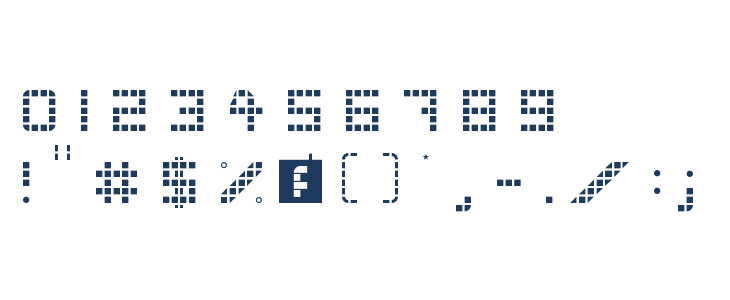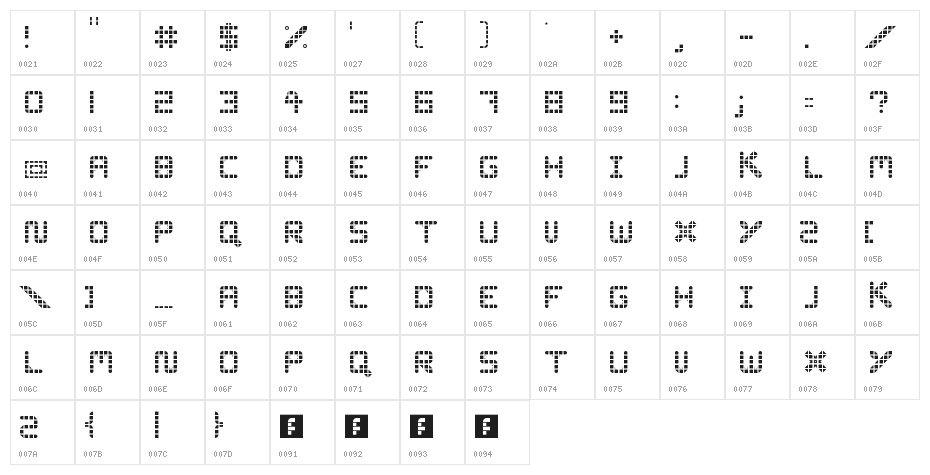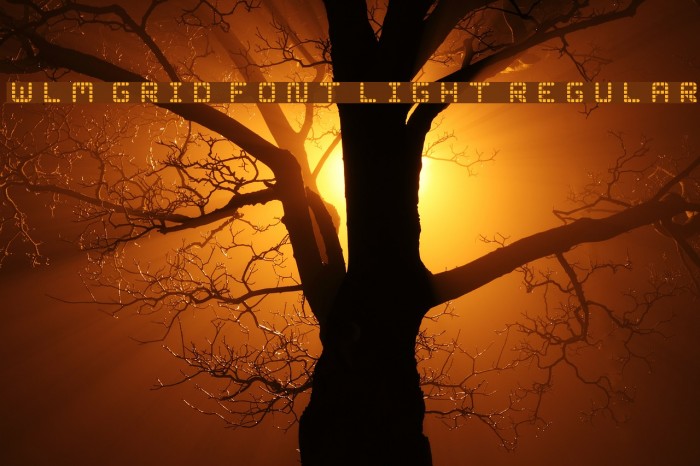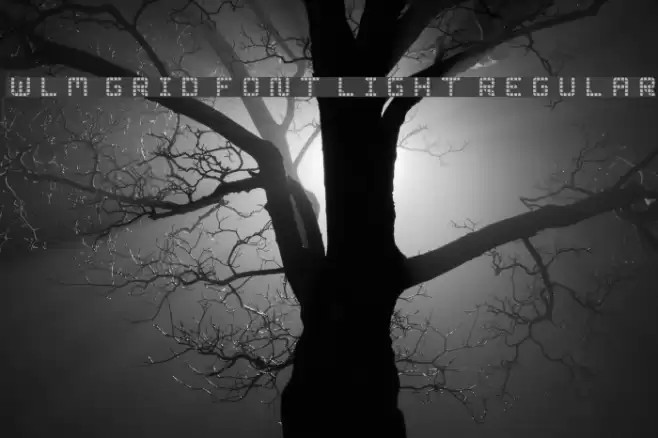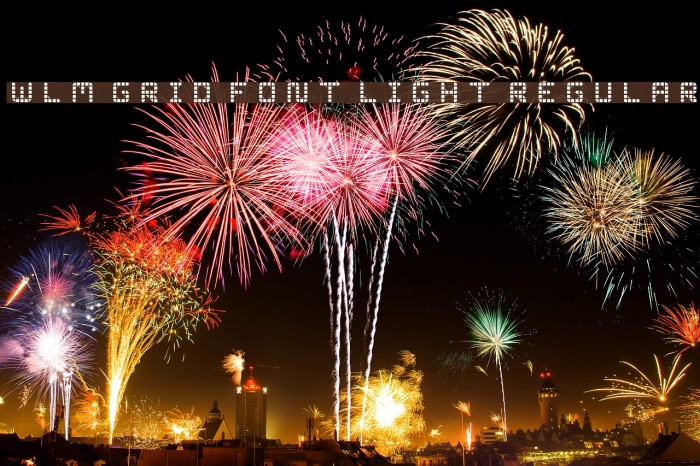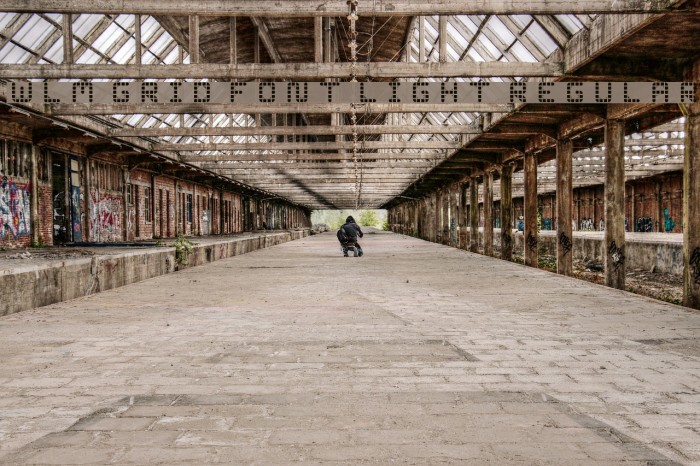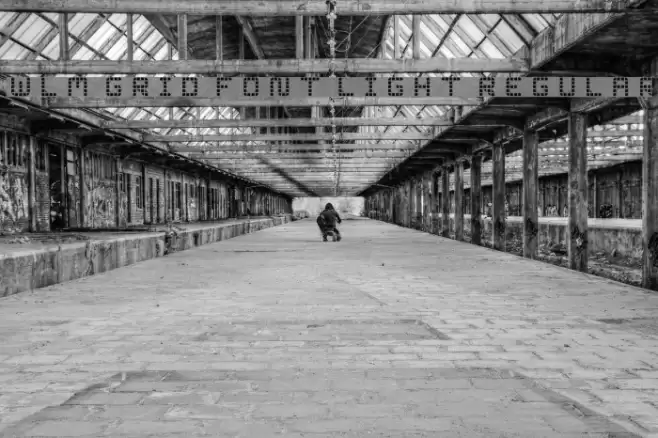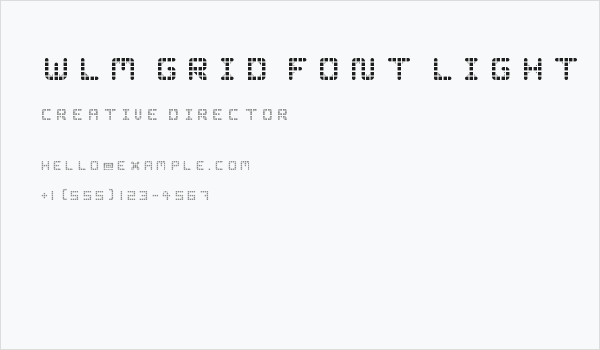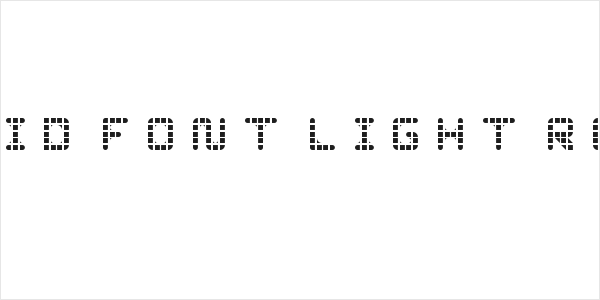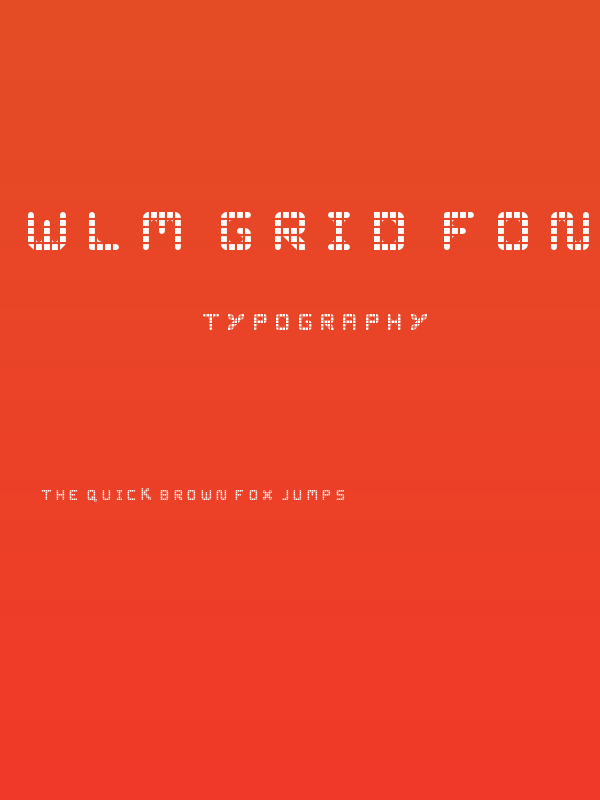
WLM Grid Font Light Regular Font
WLM Grid Font Light Regular Description
This font features a unique grid-based design, where each character is constructed from a series of small squares, creating a pixelated effect. The geometric structure gives it a modern and digital appearance, reminiscent of early computer graphics or LED displays. The uniformity of the grid pattern across all characters ensures a consistent look, while the open spaces within the letters add a sense of lightness and airiness. This design is both eye-catching and functional, making it suitable for digital-themed projects or any context where a futuristic aesthetic is desired.